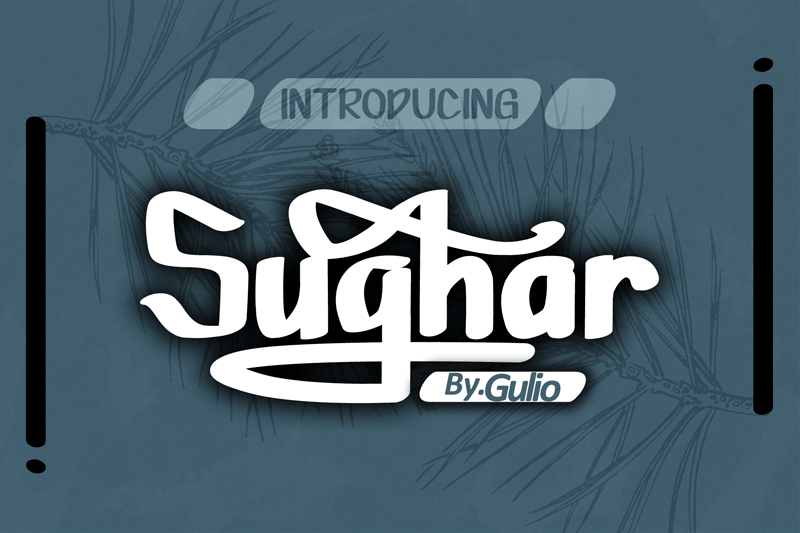
Preview and download Sughar Font. Created by Wahy Sapt in Script Various styles with Free for personal use license.
Full Glyps: https://fontbundles.net/gulio/283693-sughar-brush-font Hi, Sughar is a Modern bold. Sughar is a logotype font with smooth curves so this font is great for Branding, Logo Design, Lettering,Logotype, Clothing, Poster, magazine, cover book, media sosial diary and other design project. What's Includes: Sughar (otf, ttf ) Opentype Features (Alternate, Swash) Multilingual Support A������C�D�E����I����N�O������U����WYݟ?�ƌ�� Hope your enjoy with our font |